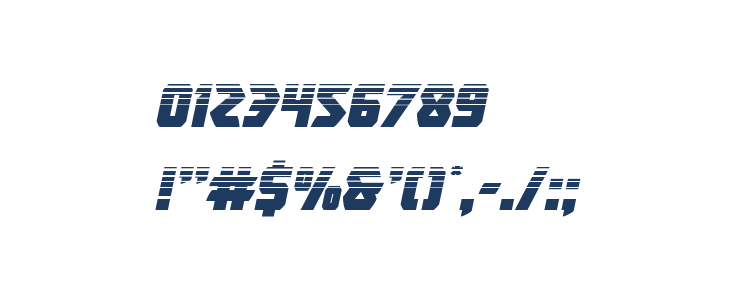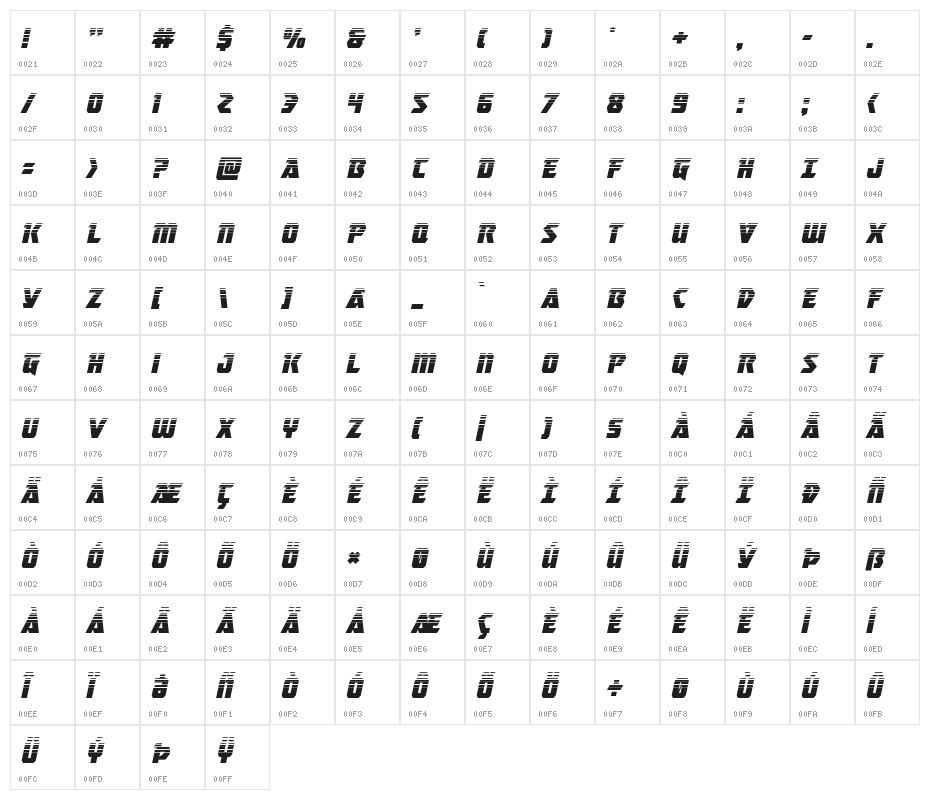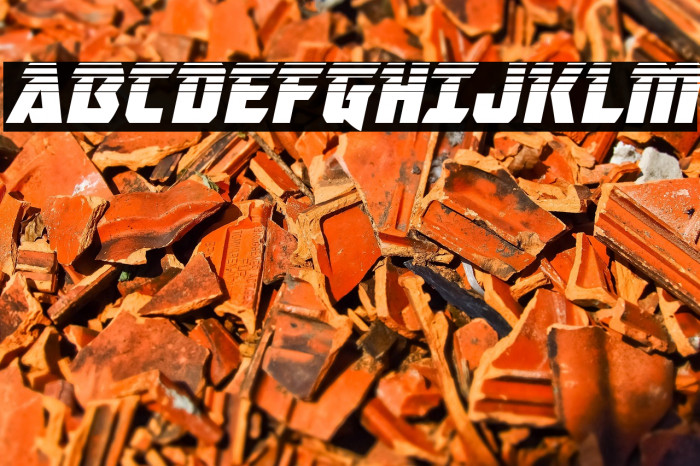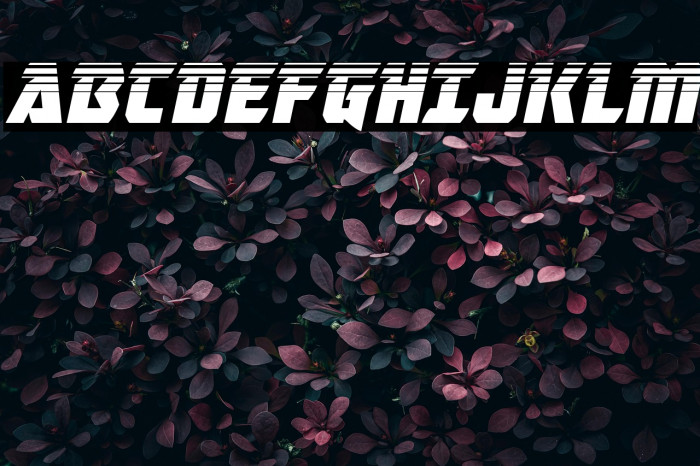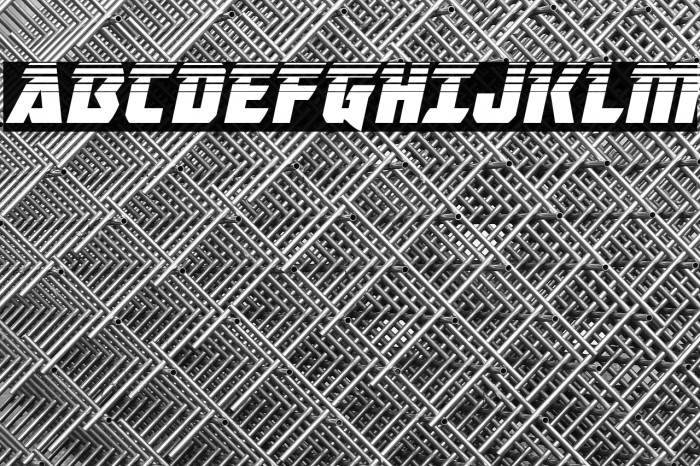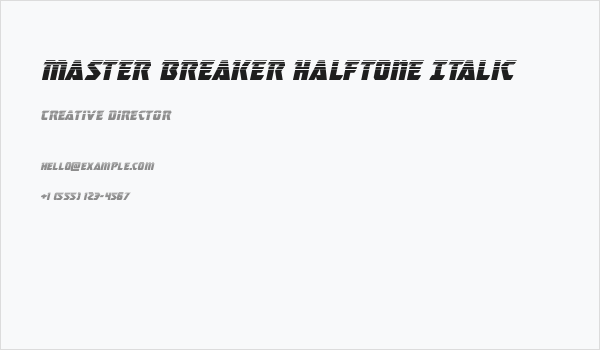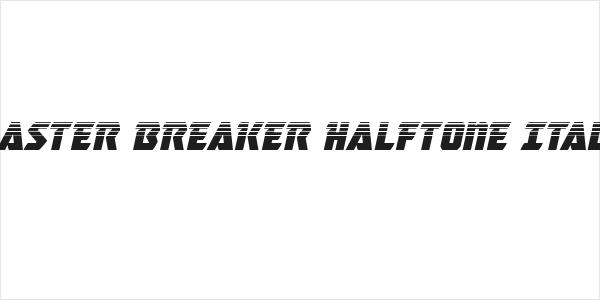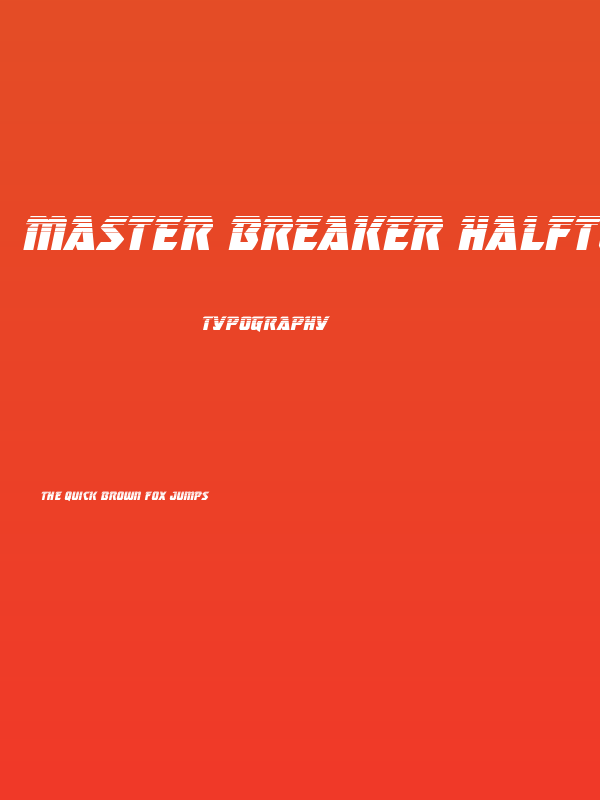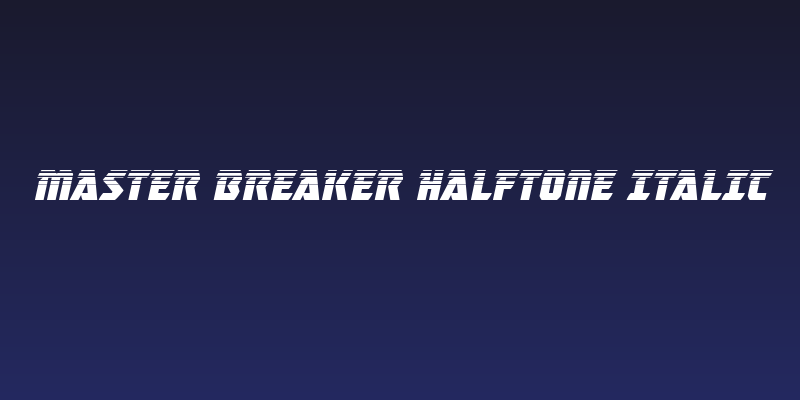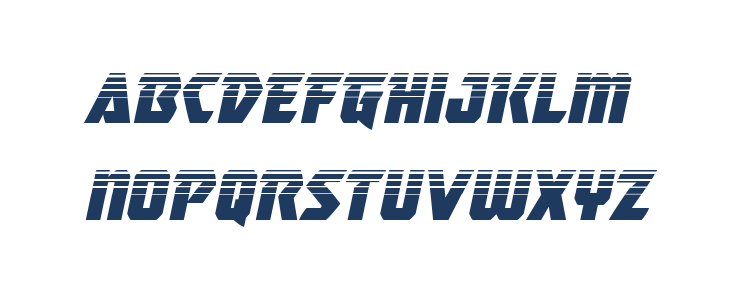
Master Breaker Halftone Italic Font
Master Breaker Halftone Italic Description
This font features a bold, angular design with a distinct halftone effect that gives it a dynamic and futuristic appearance. The characters are italicized, adding a sense of motion and energy. The uppercase and lowercase letters are consistent in style, with sharp edges and a geometric structure. The numbers and special characters maintain the same bold and angular aesthetic, ensuring uniformity across all glyphs. The font's unique style makes it stand out, suitable for projects that require a modern and edgy look.